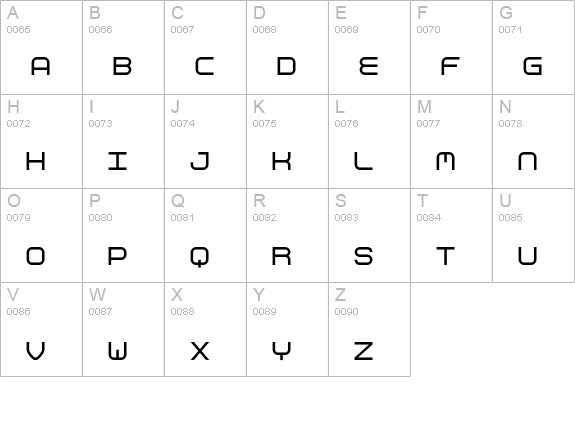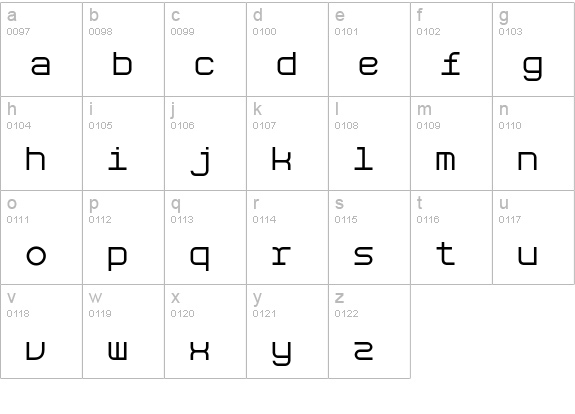
Aspirin-Regular is the standard, neutral variant in the Aspirin typeface family \xE2\x80\x94 well suited to general body text, paragraphs, and standard typographic work.
Aspirin-Regular font is a modern and versatile typeface that exudes simplicity and elegance. Its clean lines and balanced proportions make it perfect for a wide range of design projects, from branding to editorial design. With a classic and timeless appeal, Aspirin-Regular font is a reliable choice for both print and digital applications. What sets Aspirin-Regular font apart is that it is completely free to download at FontsMarket.com. This means that you can easily access this high-quality font without any cost involved. Whether you are a professional designer looking for a new addition to your font library or a hobbyist experimenting with typography, Aspirin-Regular font offers a great solution that won't break the bank. Download Aspirin-Regular font today and elevate your design projects with its sleek and sophisticated aesthetic. With its seamless integration into various design applications, this font is sure to become a go-to choice for all your typographic needs.